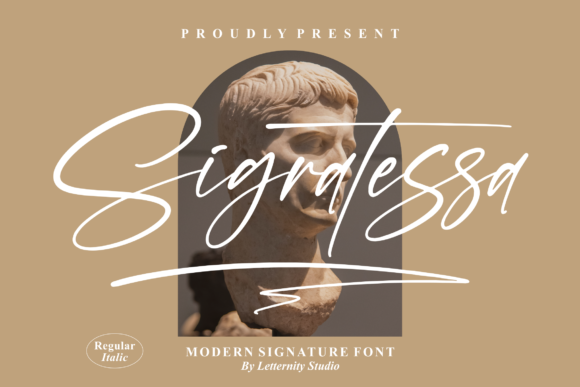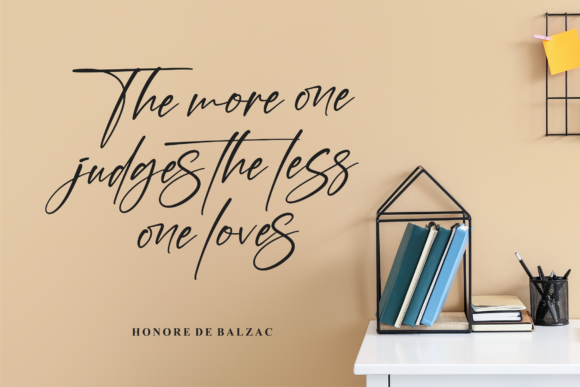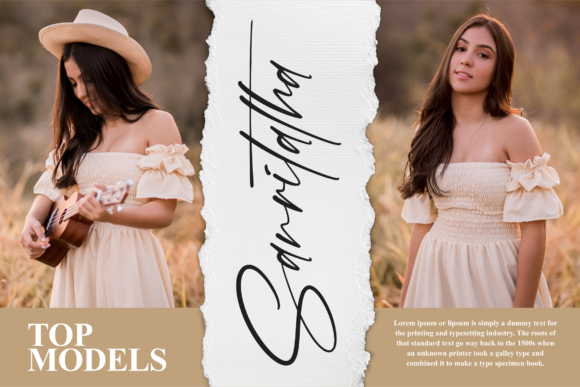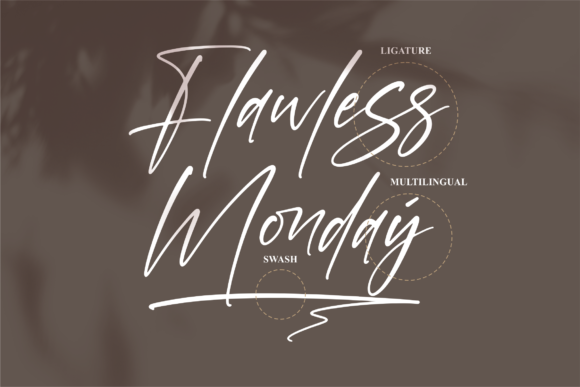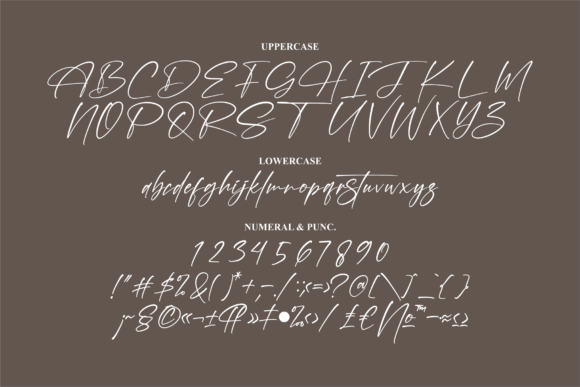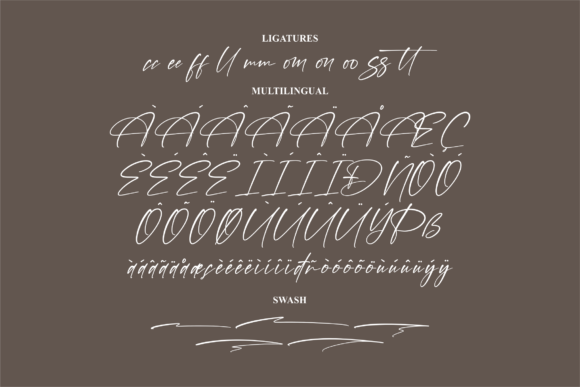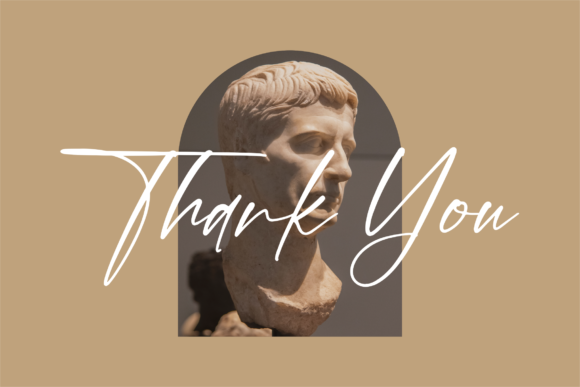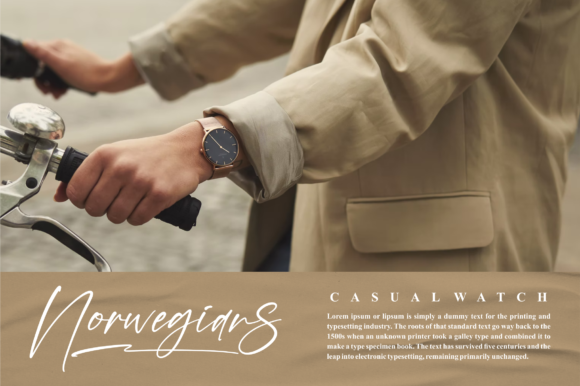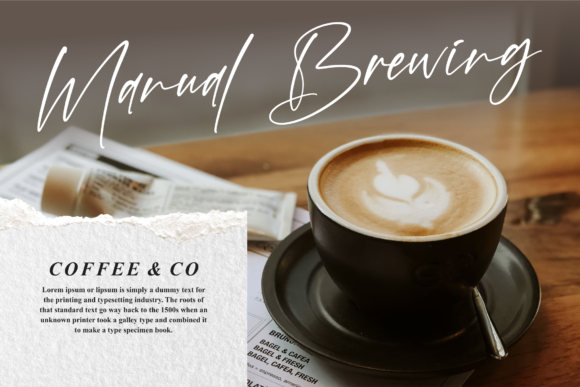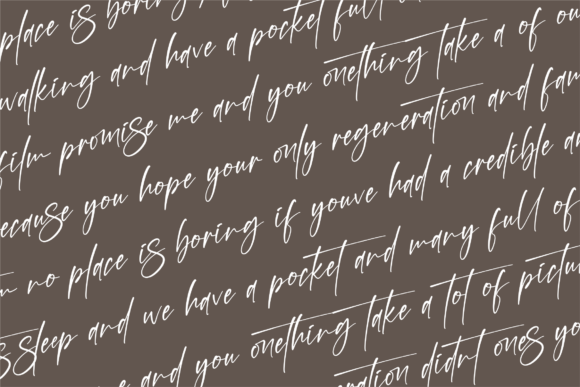
Sigratessa Font
About Sigratessa Font
Sigratessa is a beautiful script font suitable for any projects such as logos, branding projects, homeware designs, product packaging, mugs, quotes, posters, shopping bags, t-shirts, book covers, name cards, invitation cards, greeting cards, labels, photography, watermark, special events, and all your other lovely projects that need a beautiful script taste.